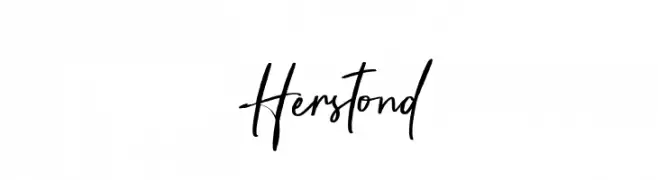
A bold and expressive script font with flowing, cursive letterforms.
A decorative script font with elegant swirls and flourishes.
A dynamic and flowing script font with elegant, fluid strokes.
A smooth, flowing script font with elegant, handwritten characteristics.
A dynamic, expressive handwritten font with fluid cursive letterforms.
An elegant script font with intricate swirls and a luxurious feel.
An elegant script font with flowing, cursive letterforms and graceful curves.
A playful and elegant script font with a handwritten style.